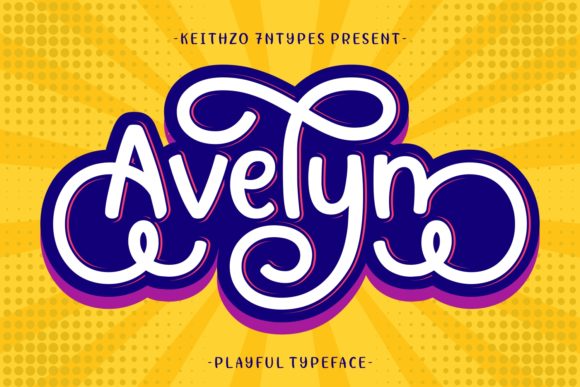
The Avelyn Font: Elevate Your Designs with Elegance and Flair
I’ll never forget the time I was working on a branding project for a boutique client, and I was stuck on finding the perfect font. The client wanted something that was both simple and decorative, and I was determined to deliver. That’s when I stumbled upon the Avelyn script font, and it changed the game. With its elegant lines and versatile swashes, Avelyn helped me create a stunning visual identity that exceeded my client’s expectations.
An Honest Review of Avelyn Font
• ✨ Elegant and Versatile: Avelyn’s script font is perfect for designs that require a touch of sophistication and elegance.
• ✅ PUA Encoded: The font’s PUA encoding makes it easy to access the available glyphs and swashes, giving you more creative control.
• 🌈 Customizable: With its range of swashes and glyphs, Avelyn allows you to experiment with different styles and combinations to match your brand’s unique personality.
While Avelyn is an amazing font, there are a few things to keep in mind:
• 🤔 Learning Curve: With so many glyphs and swashes to explore, it may take some time to get familiar with Avelyn’s features.
• ⚠️ Overusing Swashes: Be mindful of overusing swashes, as it can make your design look cluttered and overwhelming.
The Designer Inspiration Behind Avelyn
Avelyn’s design story is one of passion and creativity. According to its designer, Avelyn was inspired by the elegant lines and flourishes of traditional calligraphy. With a focus on versatility and customizability, Avelyn’s designer aimed to create a font that would help designers elevate their designs and bring their creative visions to life.
Q: What is PUA encoding, and how does it benefit Avelyn users?
A: PUA (Private Use Area) encoding allows font designers to include additional glyphs and characters that aren’t part of the standard Unicode character set. In Avelyn’s case, PUA encoding makes it easy to access the font’s swashes and glyphs, giving users more creative control.